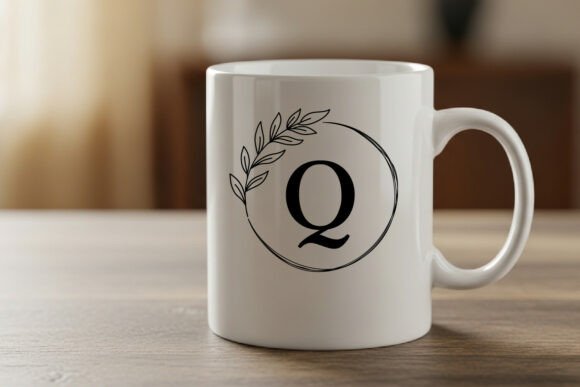
Introduction to Olive Crest Monogram Font
As you sit at your desk, surrounded by scraps of paper, paint swatches, and half-finished projects, the spark of inspiration strikes. You envision a beautiful, elegant design that captures the essence of your creative vision. For many designers, finding the perfect font is the key to unlocking that vision. This is where the Olive Crest Monogram Font comes in – a clean and sophisticated design resource that elevates any project to new heights.
Whether you’re working on a wedding invitation, luxury branding, or a DIY craft, this monogram font is the perfect choice. Its refined circular frame and soft leafy details create a timeless aesthetic that exudes sophistication and elegance. And with its transparent background, you can easily use it for sublimation, Cricut crafts, and other creative projects.
What makes the Olive Crest Monogram Font truly valuable is its versatility and high-quality design. You can download it for free and use it in a variety of ways, from personalized gifts to nursery decor. Its clean and minimal style makes it a great addition to any design project, and its delicate botanical wreath accents add a touch of whimsy and romance.
Olive Crest Monogram Font
- Monogram font with a unique, elegant design perfect for personal or professional use
- Designed as a valuable design resource for artists, designers, and creatives
- Perfect for use in logos, branding materials, and other creative projects requiring a high-quality monogram font
Honest Review: Olive Crest Monogram Font
I recently stumbled upon the Olive Crest Monogram Font and was excited to give it a try for my next creative project. As a designer, I appreciate a good resource, and this font certainly delivers.
- ✨ High quality design with a unique and elegant style
- ⚠️ The font is only available in uppercase letters, which may limit its versatility for certain designs
- ⚠️ The transparent background option can sometimes be tricky to work with, especially when combining with other design elements
Overall, I’m impressed with the Olive Crest Monogram Font and would definitely consider using it for future projects. Its unique style and high quality design make it a great addition to any design resource collection. With a little creativity, the limitations can be easily worked around, and I’m excited to see what other designers come up with using this font.
Experiment with different font sizes, colors, and styles to create a unique and eye-catching design. Use the font in combination with other design elements, such as images and shapes, to add depth and interest to your creative project.
The Olive Crest Monogram Font is perfect for creating custom logos, business cards, and other design elements for your brand. It’s also great for creating invitations, party decorations, and other event-related materials. With its high-quality design and transparent background, you can use it in a variety of creative projects to add a touch of elegance and sophistication.
Q: Can I customize the Olive Crest Monogram Font for my design resource?
Yes, you can customize the Olive Crest Monogram Font to fit your design needs. Since it’s a monogram font, you can easily combine letters to create unique designs. You can also experiment with different colors and styles to match your brand or project.